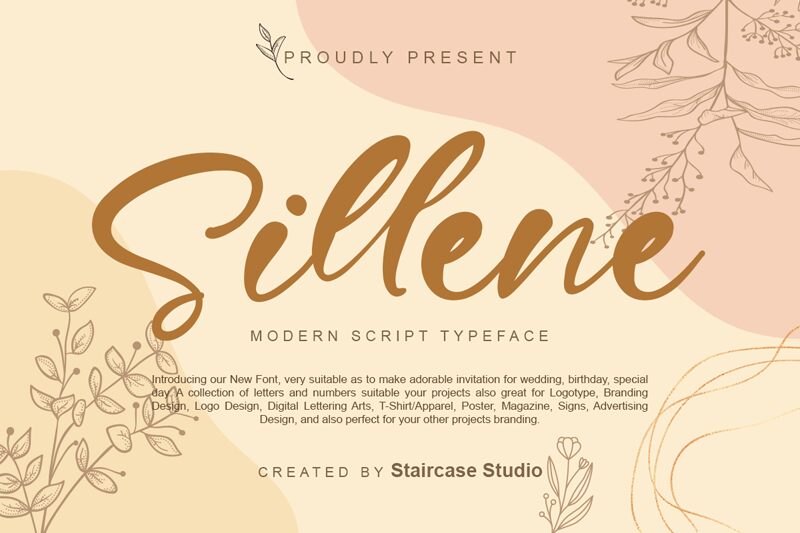
Sillene
Say hello to Sillene, the contemporary script font designed by Staircase Studio. With its sleek and stylish strokes, Sillene is perfect for adding a touch of sophistication to any project. Whether it's branding for a high-end fashion label or elegant wedding invitations, this font will certainly make a statement. Its flowing curves and edgy lines create an eye-catching effect that's sure to impress. From websites to packaging designs, from magazines to social media graphics, Sillene will elevate your message and give your content the wow factor it needs!